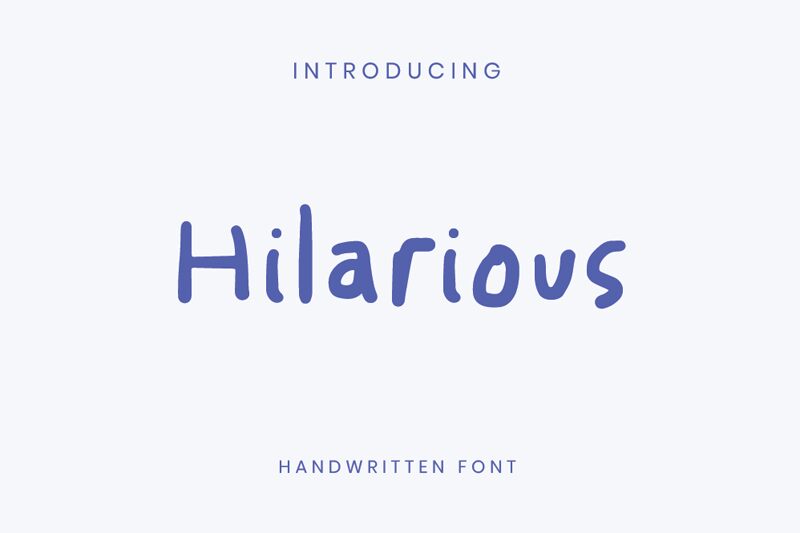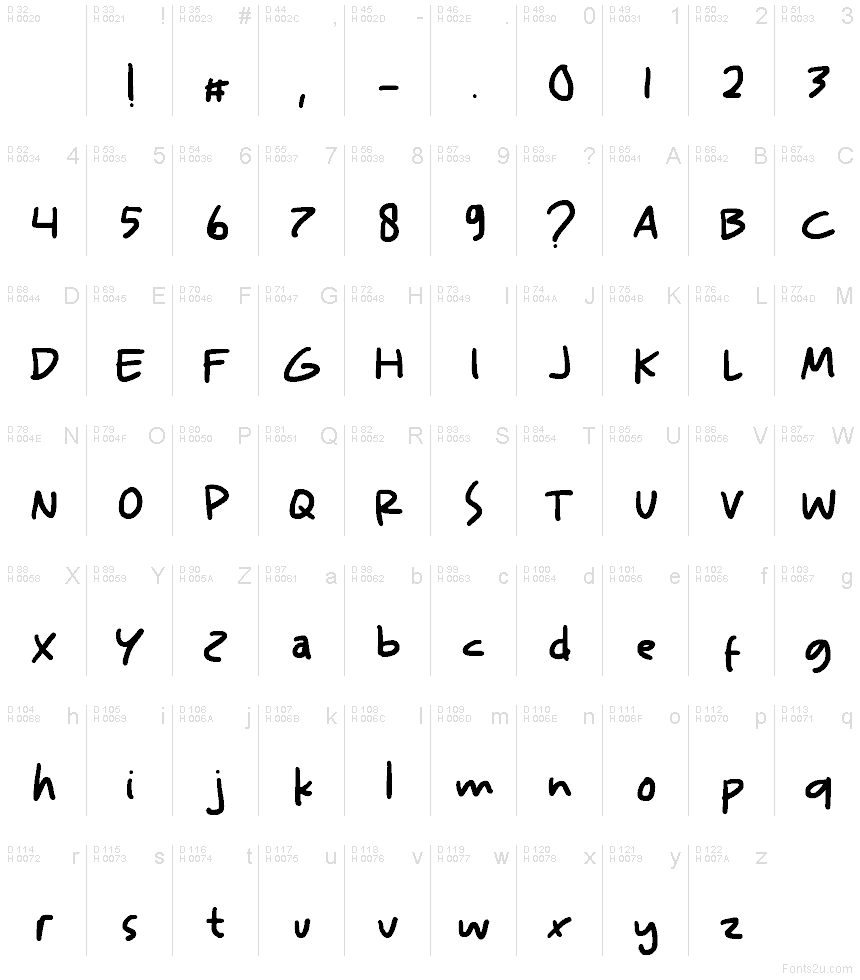
Hilarious HF font by Just Handwritten Font is a free handwritten typeface that feels like it was scribbled with a bold marker on smooth paper. The letters are round, bouncy, and slightly uneven in the best way, giving designs a friendly, unpretentious voice. Thick strokes and generous spacing keep it legible even at smaller sizes, while its playful rhythm adds energy without becoming chaotic.
Using Hilarious HF, you can give kids’ posters, comic-style titles, social media graphics, classroom printables, YouTube thumbnails, and casual branding a warm, human touch. This free font shines when you let it breathe-use larger sizes for headlines and pair it with a simple sans serif for supporting text. It’s an easy way to make any project feel more personal, fun, and approachable.